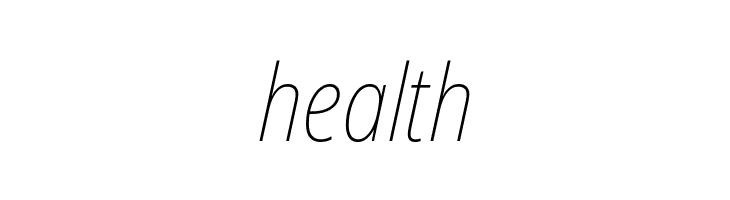
A modern, extra bold italic sans-serif font with a dynamic and assertive style.
A modern, medium-weight sans-serif font with an italic slant and balanced proportions.
A bold, italic font with a modern and assertive style.
A modern, semi-condensed, medium-weight italic typeface with a clean and professional appearance.
A sleek, modern thin italic font with elegant strokes and a refined appearance.
A modern, condensed sans-serif font with italic styling and medium weight.
A sleek, extra light, italic, and extra condensed font with a modern and minimalist design.
A modern, semi-condensed sans-serif font with semi-bold weight and italic style.
A sleek, thin, condensed sans-serif font with an elegant italic style.
A bold, extra-condensed italic font with strong visual impact.